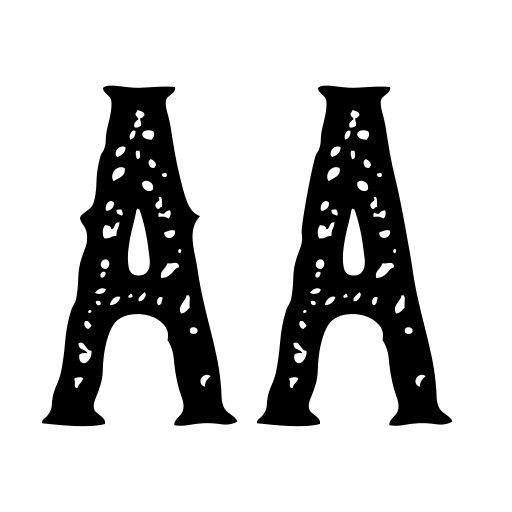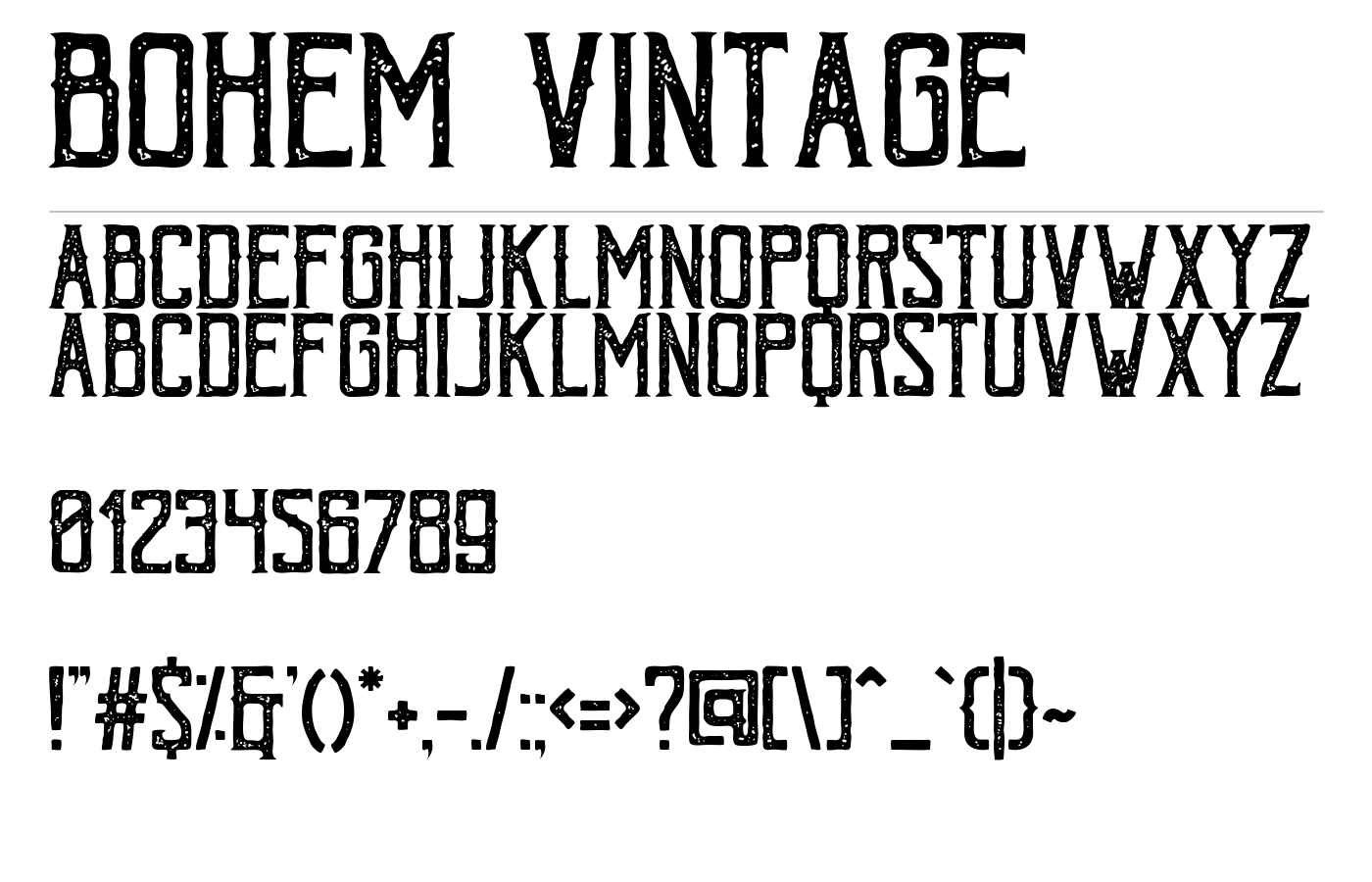
Bohem Vintage is a bold, condensed sans serif font with a rustic, distressed texture that evokes a handcrafted, old-timey feel. Its tall, narrow letterforms and rough details make it perfect for retro branding, posters, and headlines where a nostalgic yet striking impact is desired. This font works well for vintage-inspired projects that want to convey character and uniqueness with a strong, vintage personality.
Bohem Vintage Font
About Bohem Vintage Font
| Font family | Bohem Vintage Font |